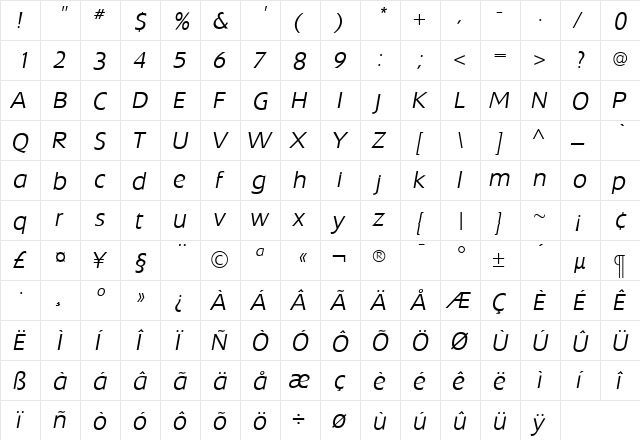
ExtensionLightItalic Roman Font Preview
Design Context for ExtensionLightItalic Typeface
ExtensionLightItalic is a composed and adaptable typeface that performs quietly and consistently across a wide range of design contexts. The dynamic lean of this cut emphasises speed and emphasis in any layout. Its slender proportions lend an understated elegance to any composition.
Pro Tip: Try ExtensionLightItalic for annotation and caption copy alongside an upright companion — the contrast in angle creates a dynamic but ordered typographic system.